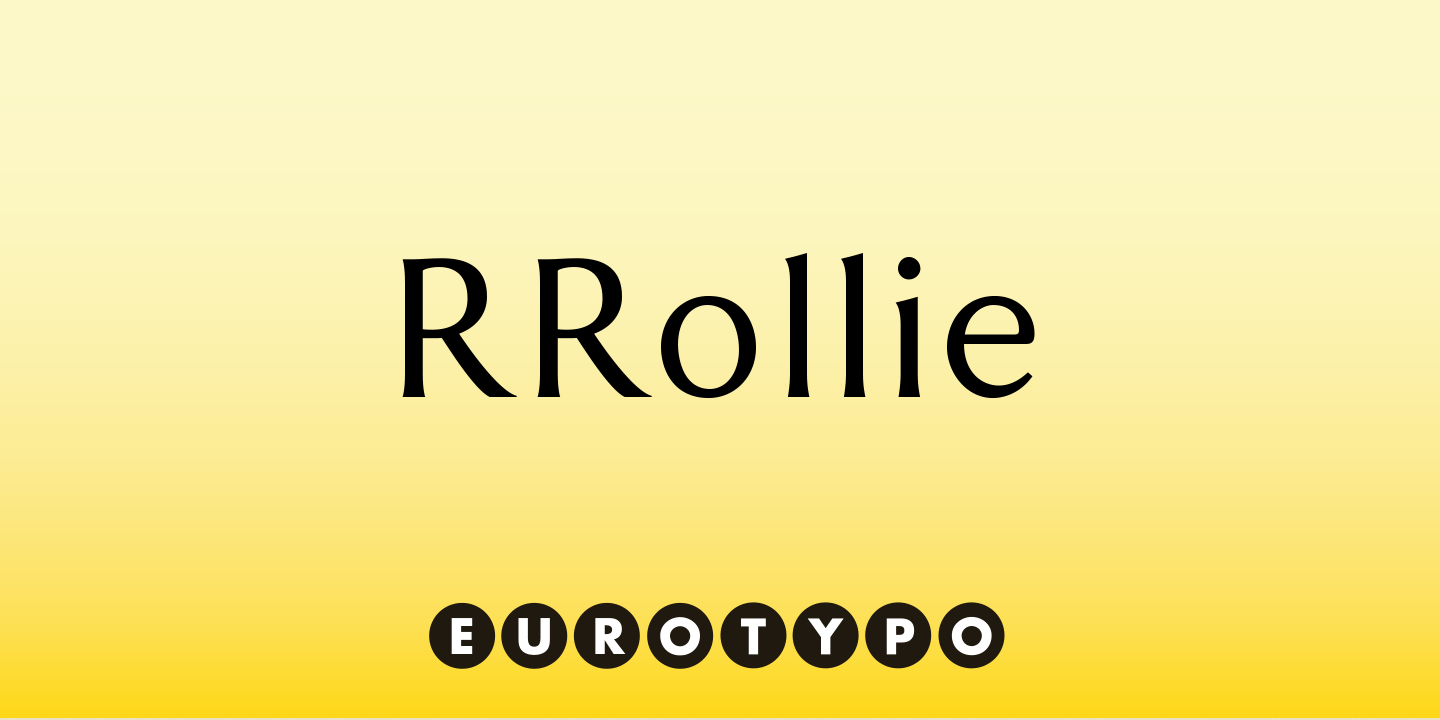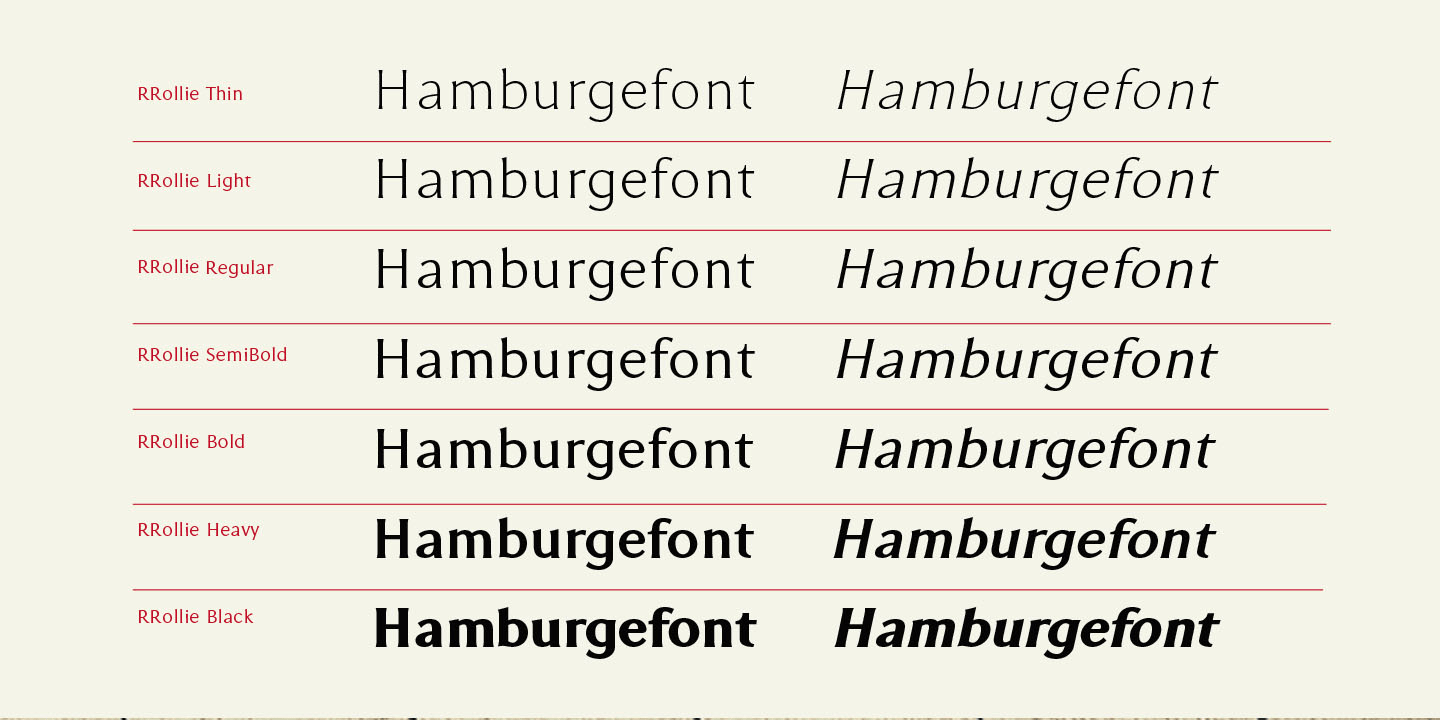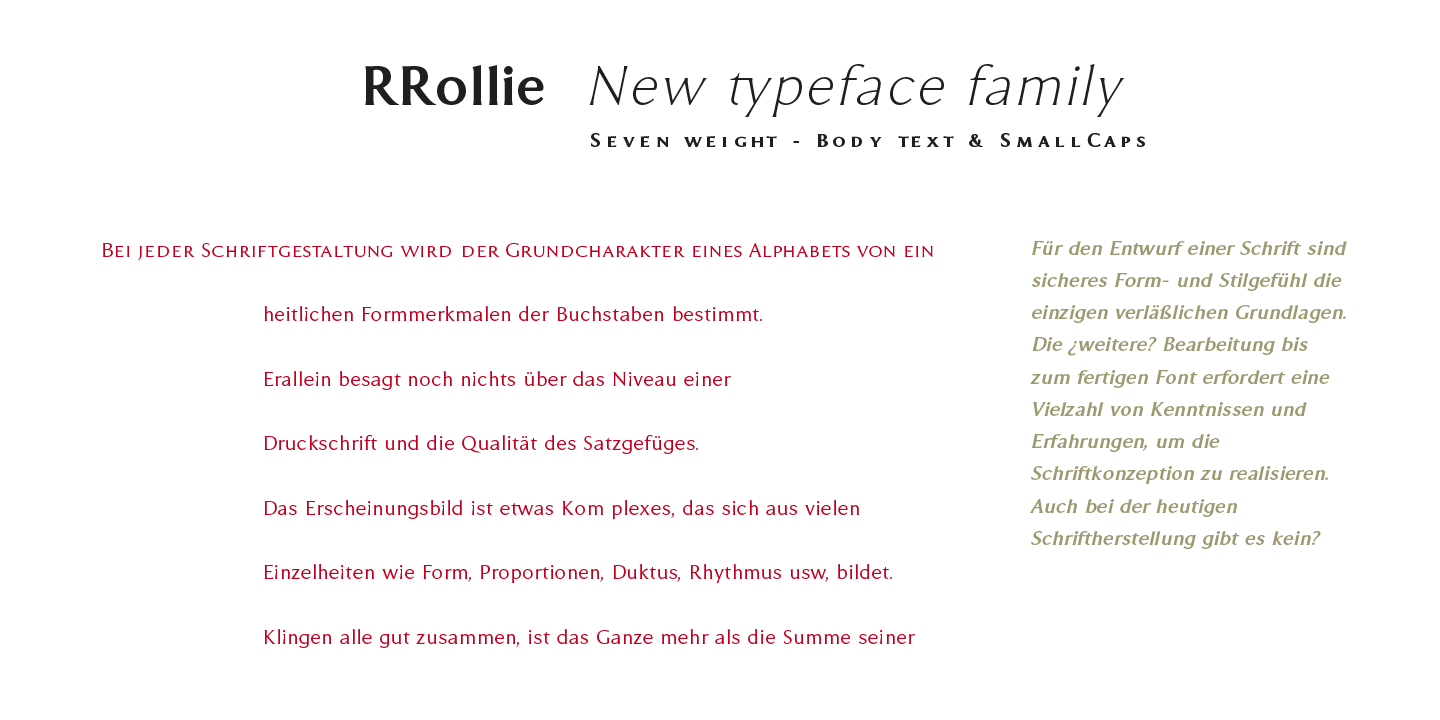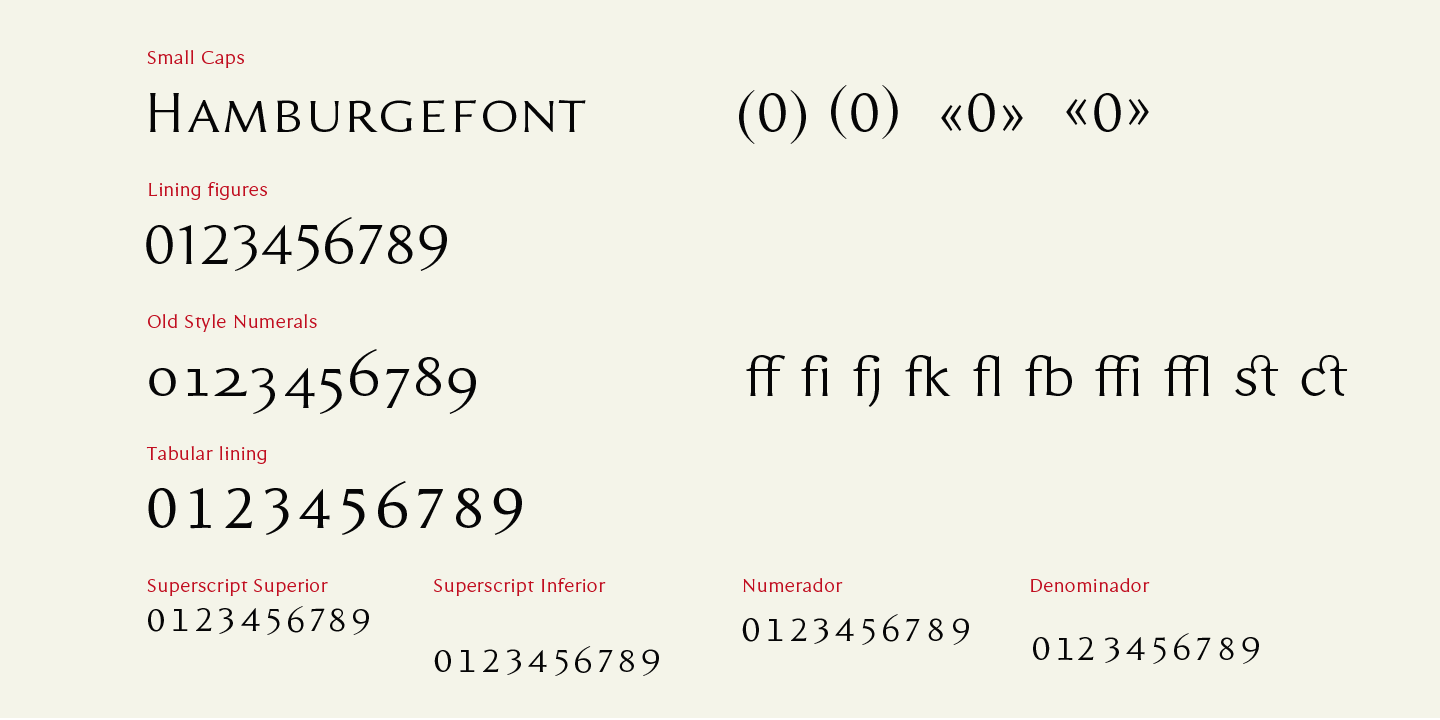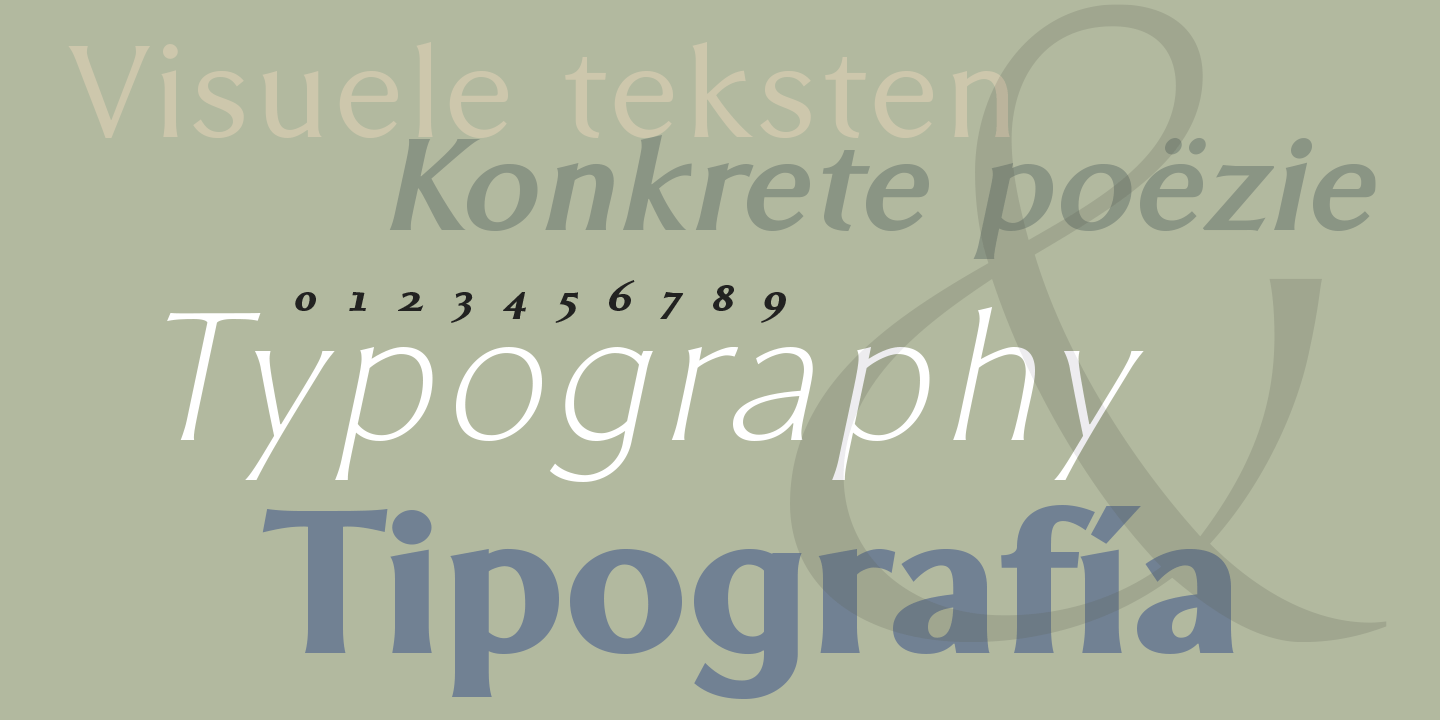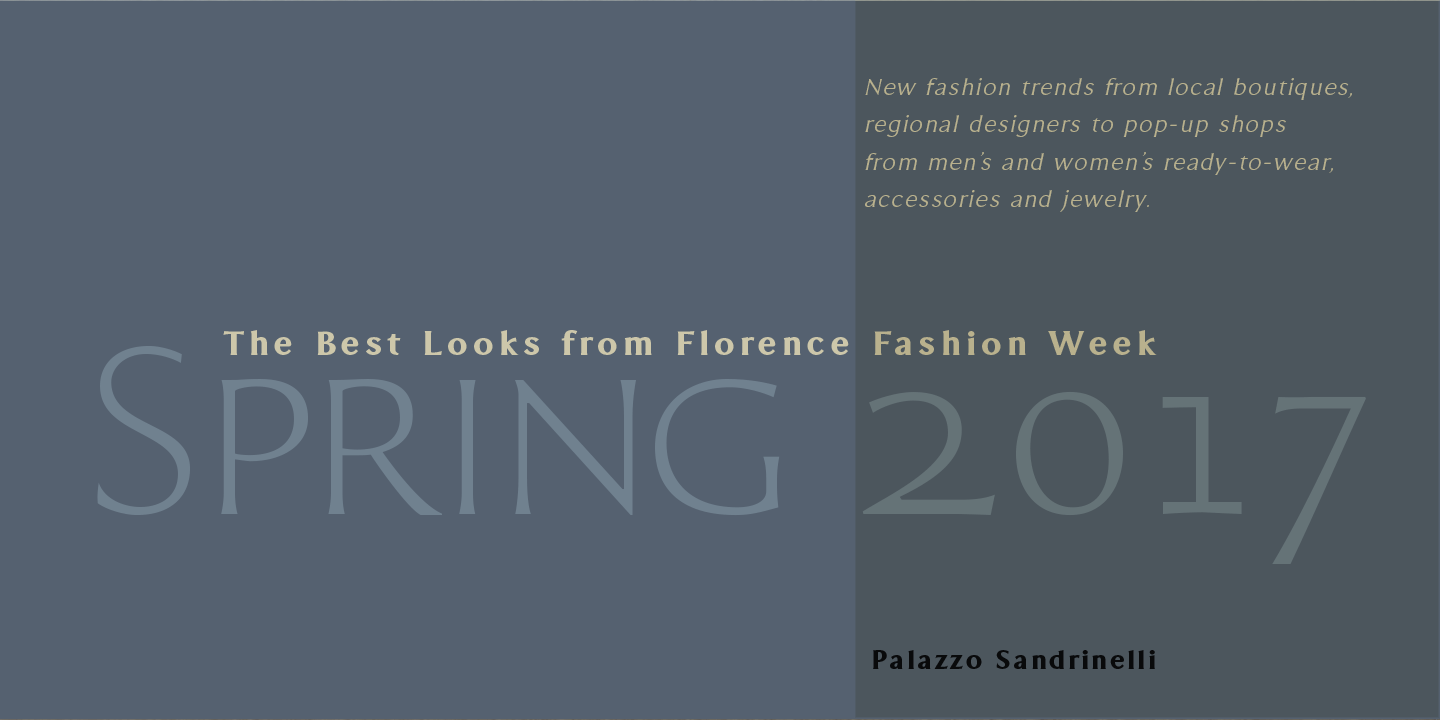
RRollie
Font Family by Eurotypo
RRollie is a typeface family inspired on the proportions of the Roman capital in the Augusto's age, some of them can be seen in inscriptions of Pompeii; in this particular case, it has been taken an inscription from a tomb of the year 15 AD. The subtlety of the serif is hardly insinuates, helping to close up the terminals of the stems. Ascenders and descenders are very short. The thickness variation is presented quite delicate, highlighting the light-dark passage and even the agile counter-blocks of the typeface. These fonts can be used in many kind of graphic works by its strong personality, visual impact and readability. This font family include OpenType features: Standard and discretionary ligatures, small caps, case sensitive from, old style figures, tabular, diacritics for western languages and many others.
Roberto Rollie (1935-2003) was an outstanding professional of graphic design, photography and Visual Arts. He was involved in the creation of the career of Visual Communication Design at the Faculty of Fine Arts (National University of La Plata, Argentina), in the late '60s; he was a pioneer and great teacher too, who loved the Roman Capitals for their subtle and balanced design, especially for high readability performance and clever design.